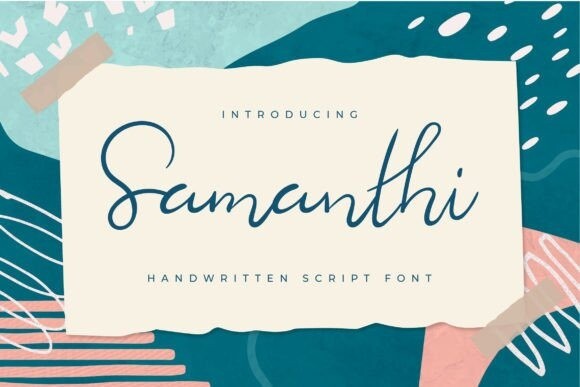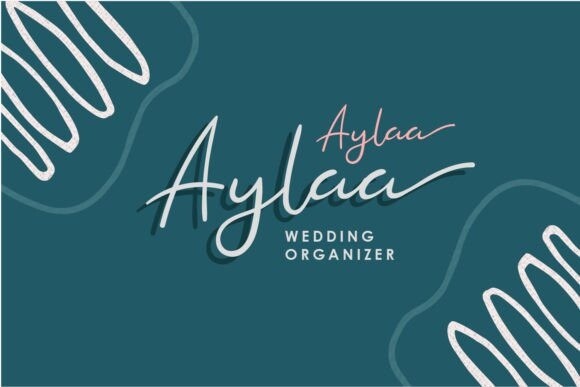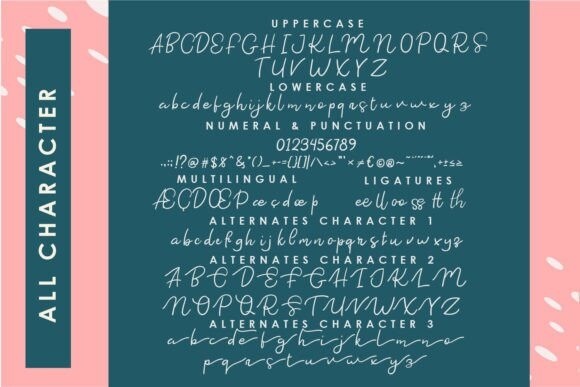
Samanthi Font
Samanthi Font is a neat and casual handwritten font. Friendly, charming, and stylish this font will suit a wide spectrum of applications. This font is PUA encoded which means you can access all the glyphs and swashes with ease!